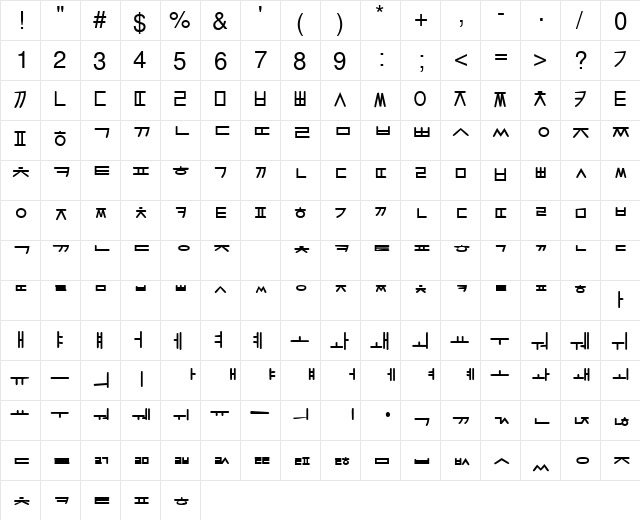
KoreanModernSSK Regular
Design Context for KoreanModernSSK Typeface
KoreanModernSSK offers clean, dependable letterforms without strong stylistic allegiance, making it a practical choice for designers who need flexibility.